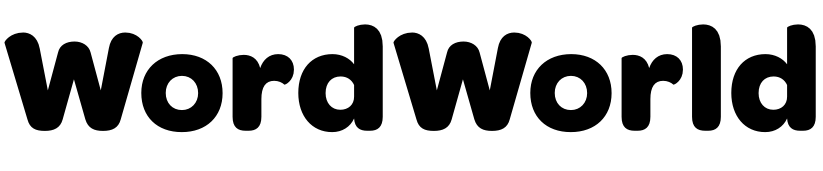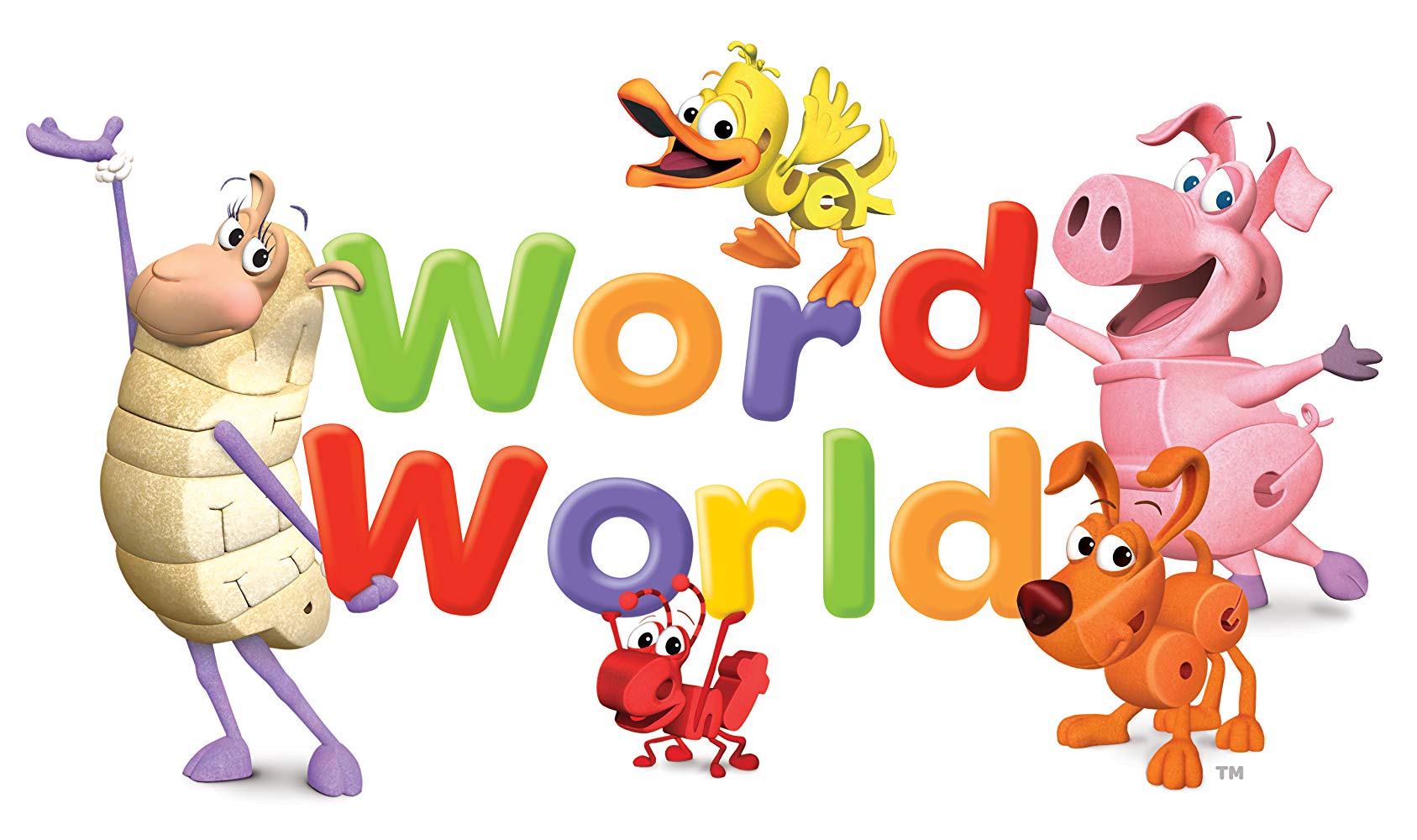
WordWorld [TV Show] Font
AnimationWordWorld is an educational animated television series for children that was broadcasted on PBS Kids from 2007 to 2011. It teaches young viewers about the relationships between letters and the words they create through interactive and engaging storylines.
The WordWorld TV logo uses a rounded sans serif font called Omnes Bold from Darden Studio. Omnes was designed by Joshua Darden and released in 2006 through Darden Studio foundry.